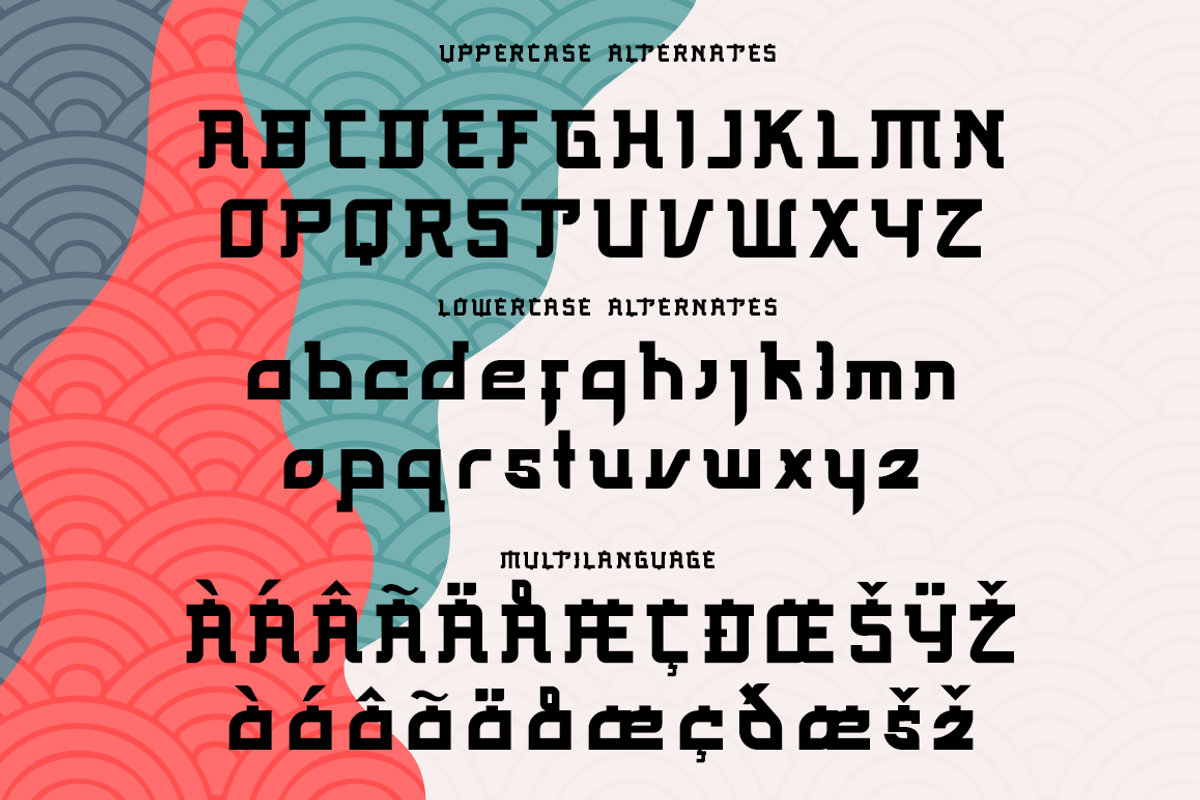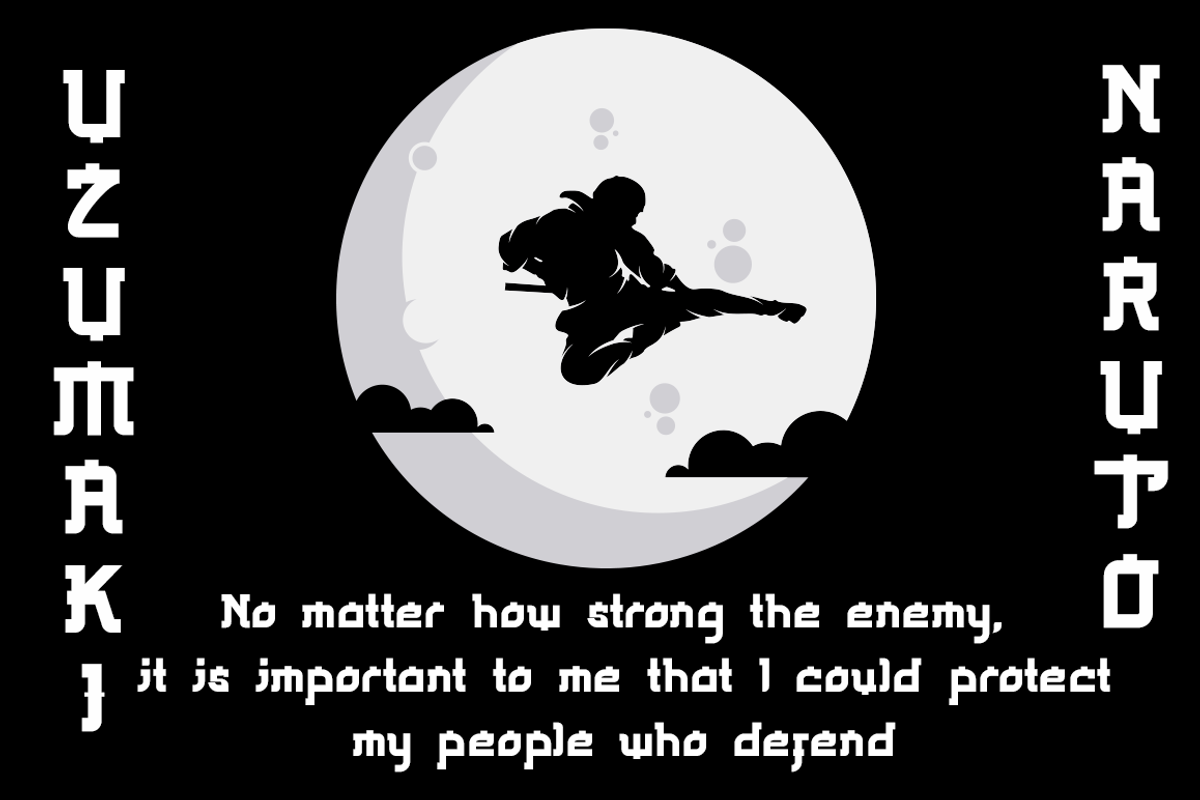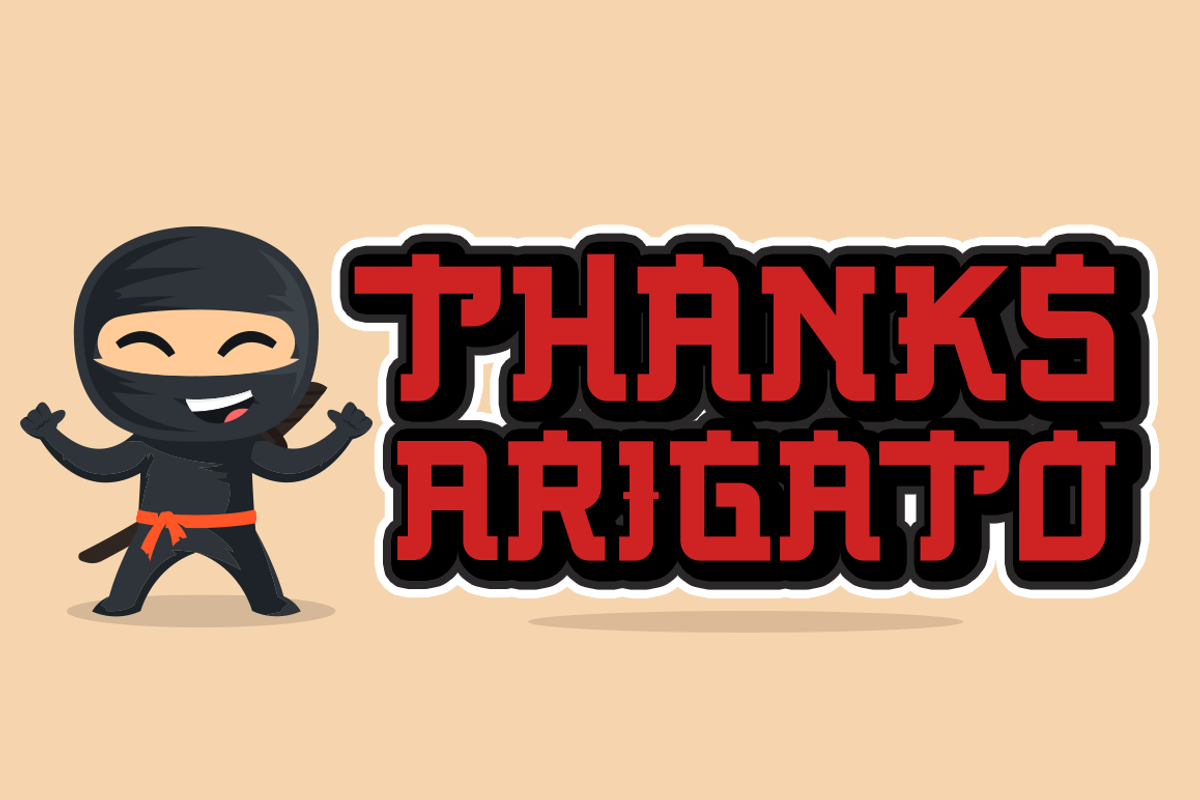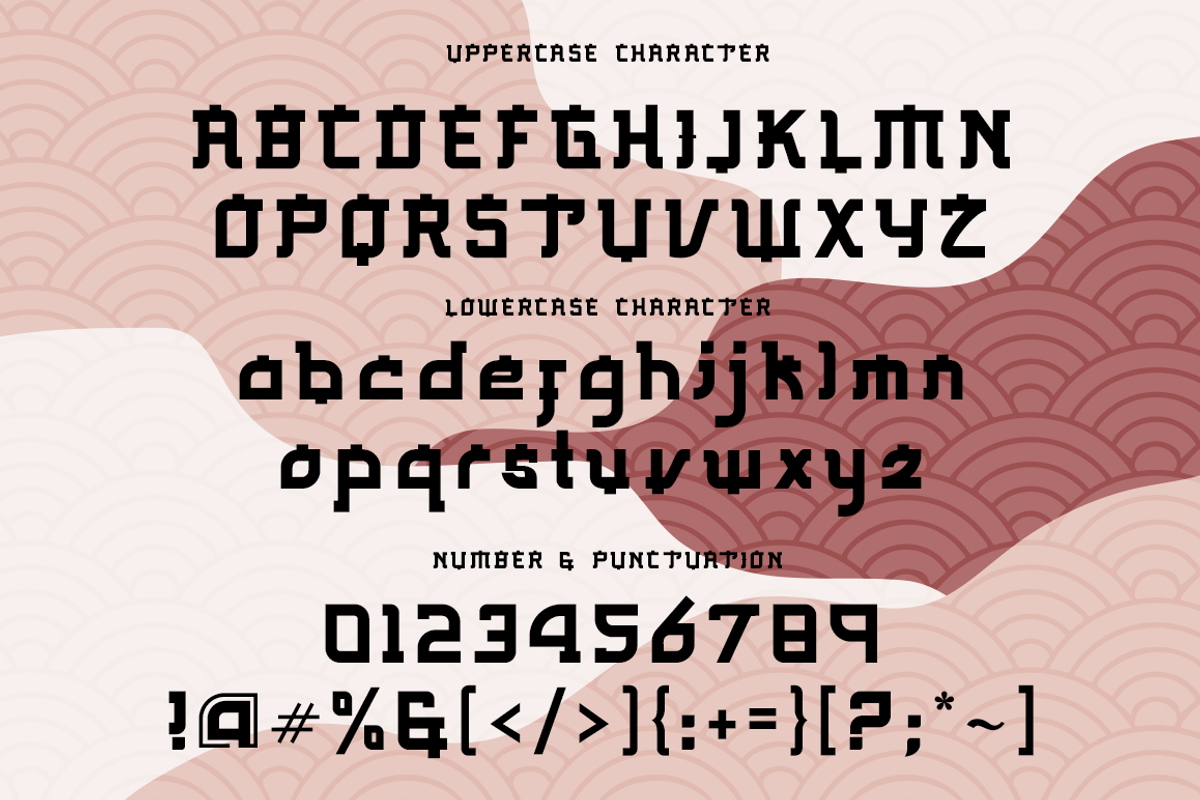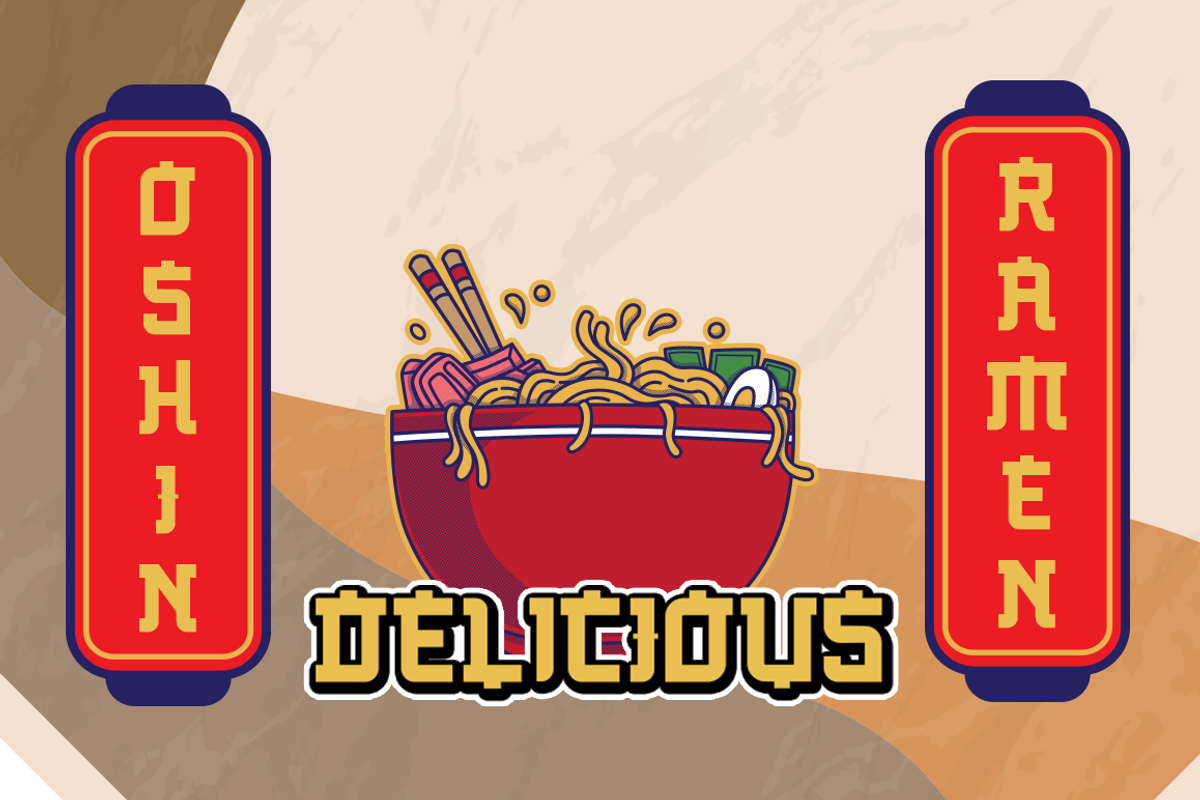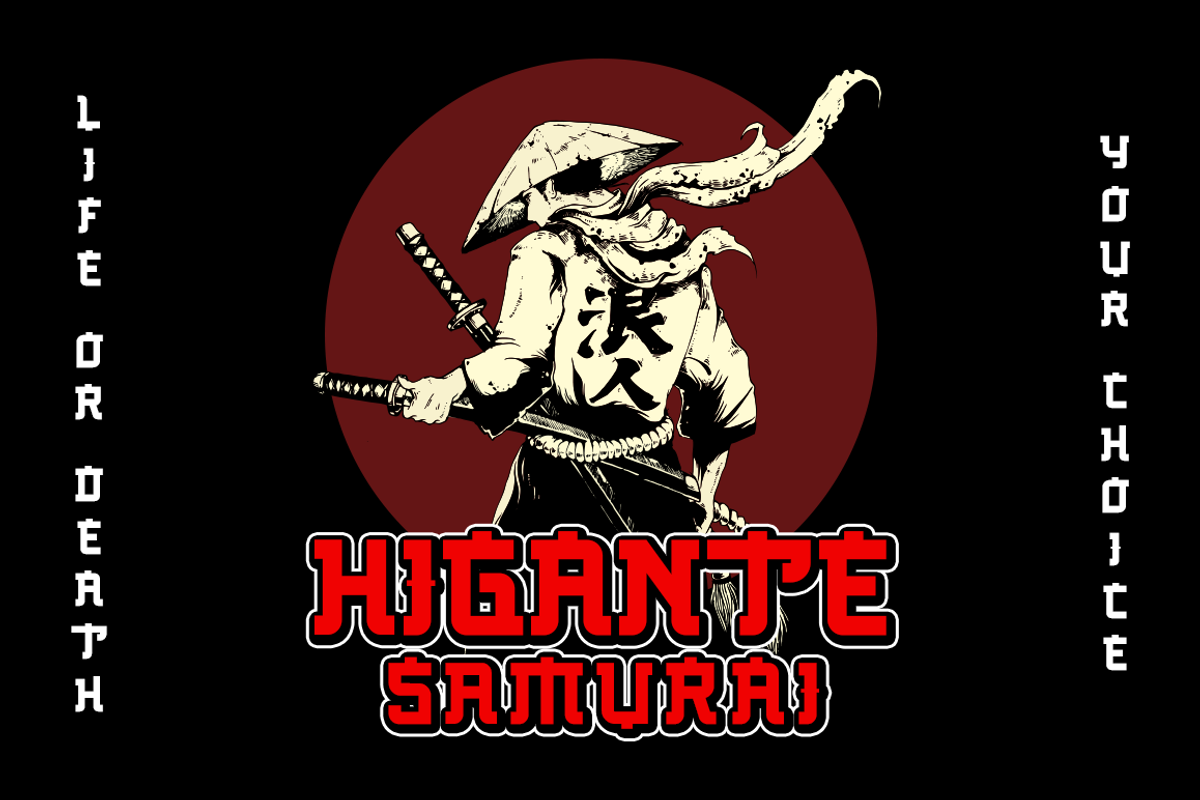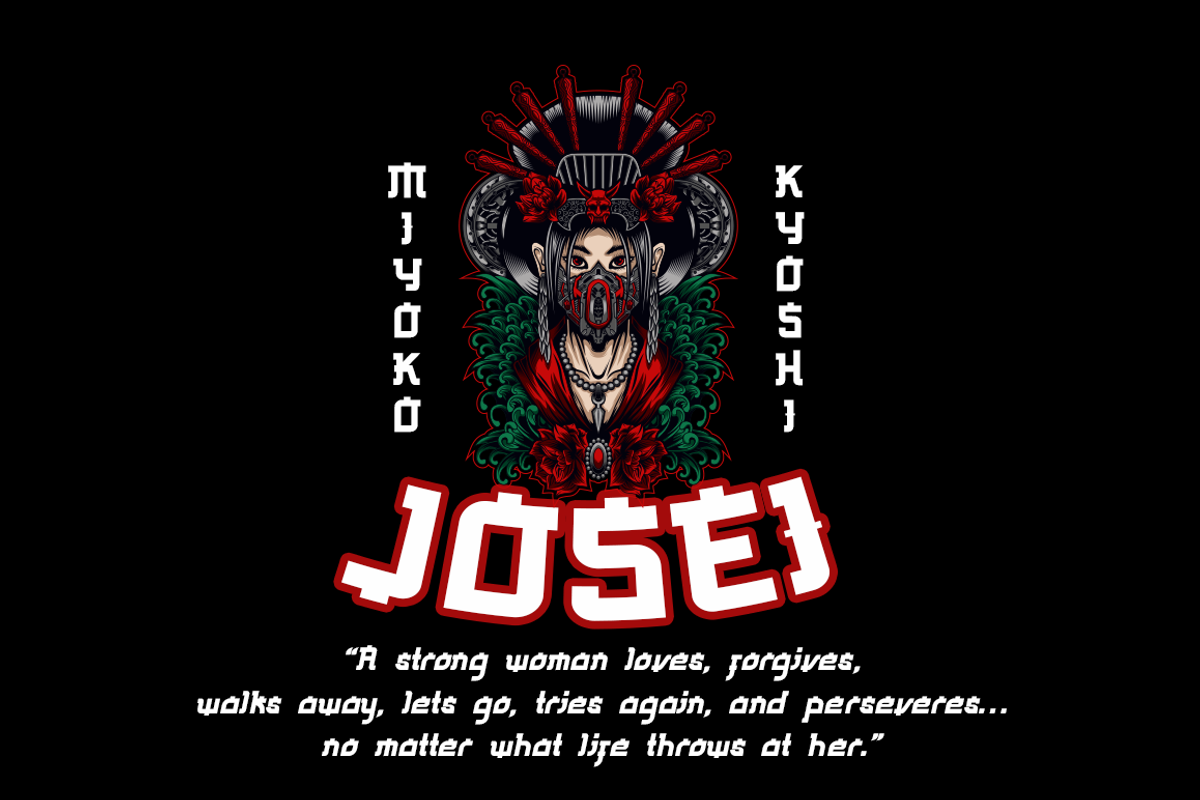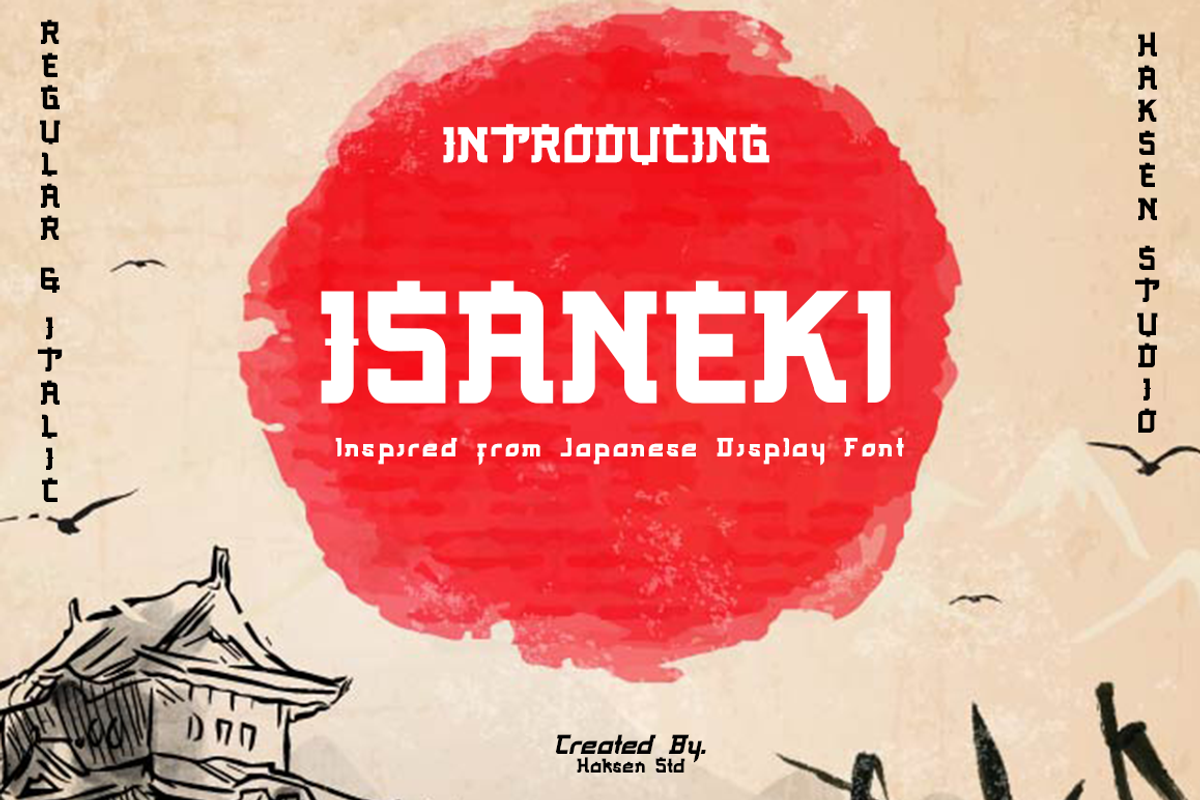
ISANEKI | Inspired by Japanese Style
Isaneki is a display sans with Japanese style unique completely alternates feel nice balanced. Make the design letter looks incredible. Honestly it works perfectly for headlines, logos, posters, packaging, T-shirts and much more.
- Regular and Italic version
- Character set A-Z in uppercase and lowercase
- Alternates in Uppercase and Lowercase
- Accented Characters
- Multiple Languages Supported